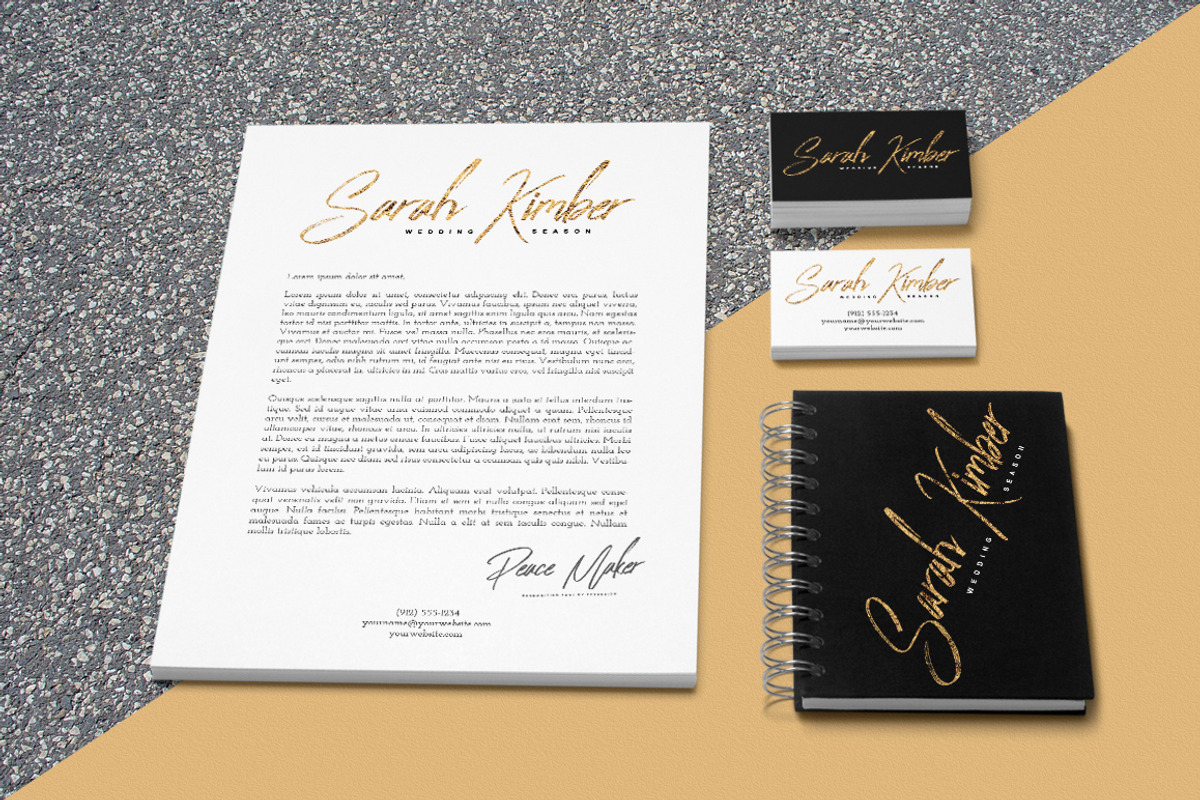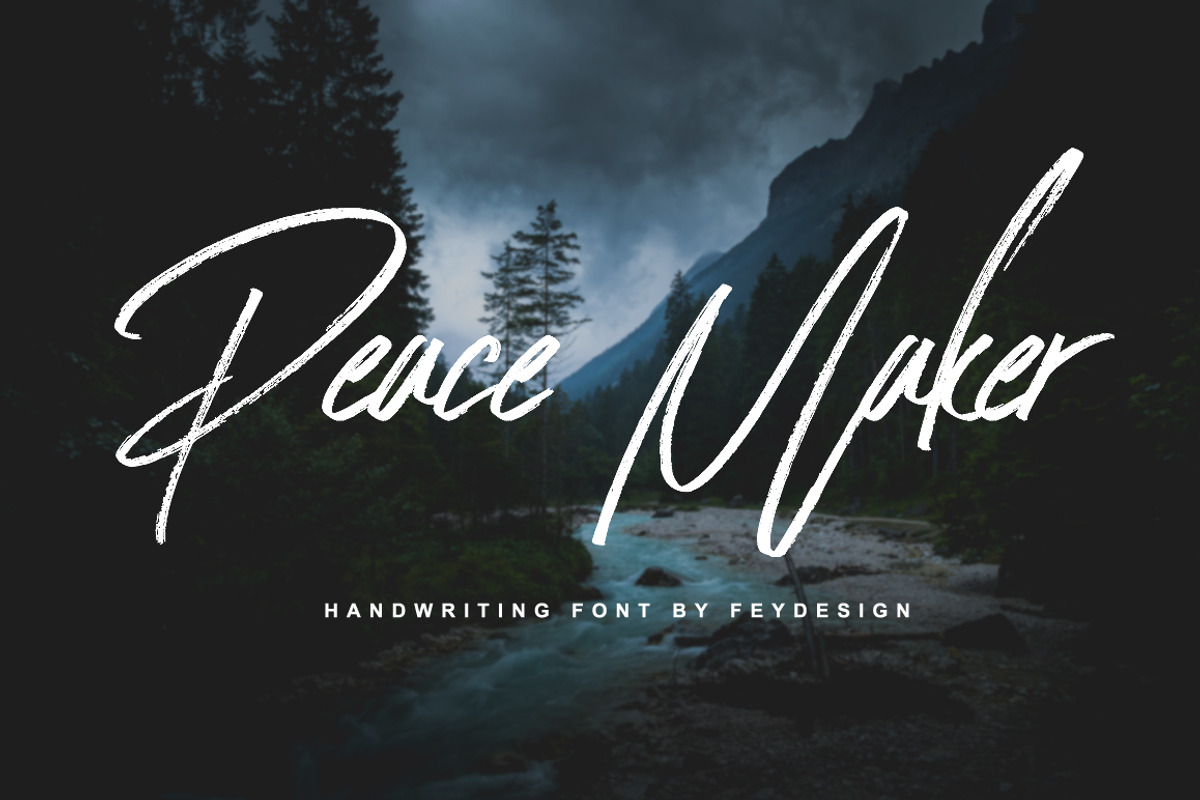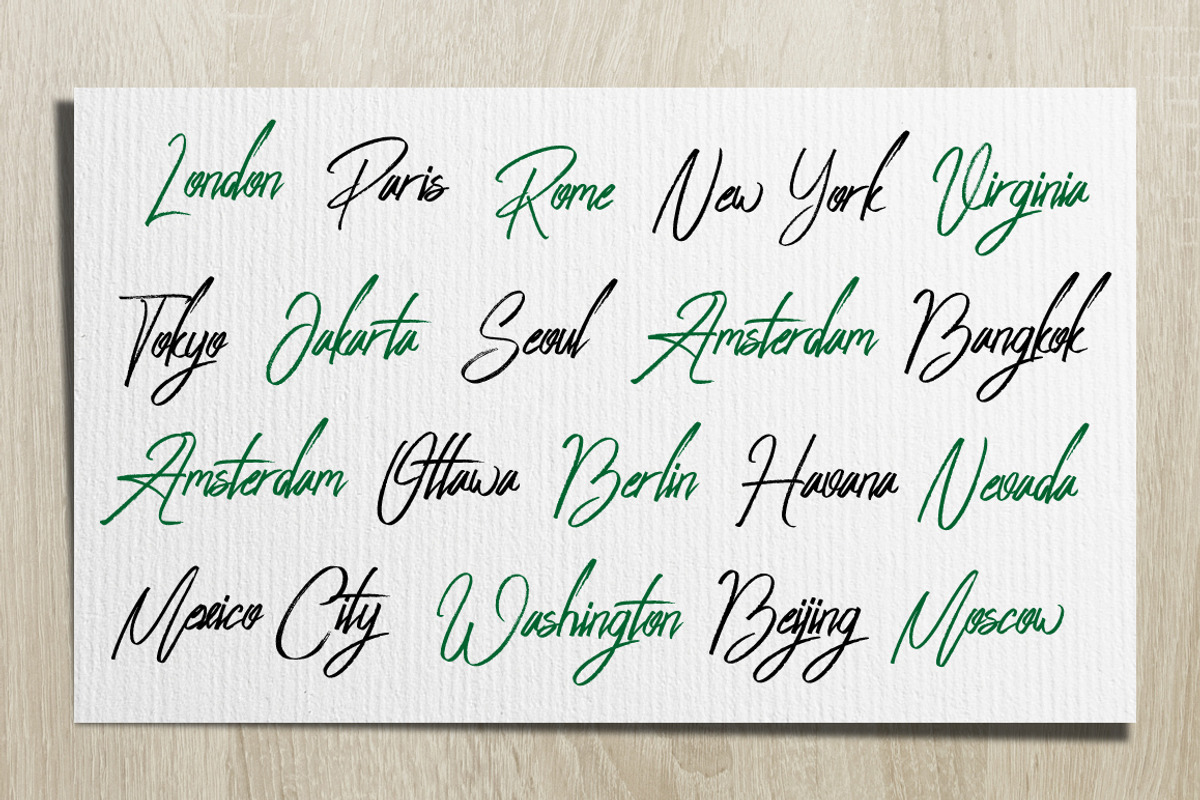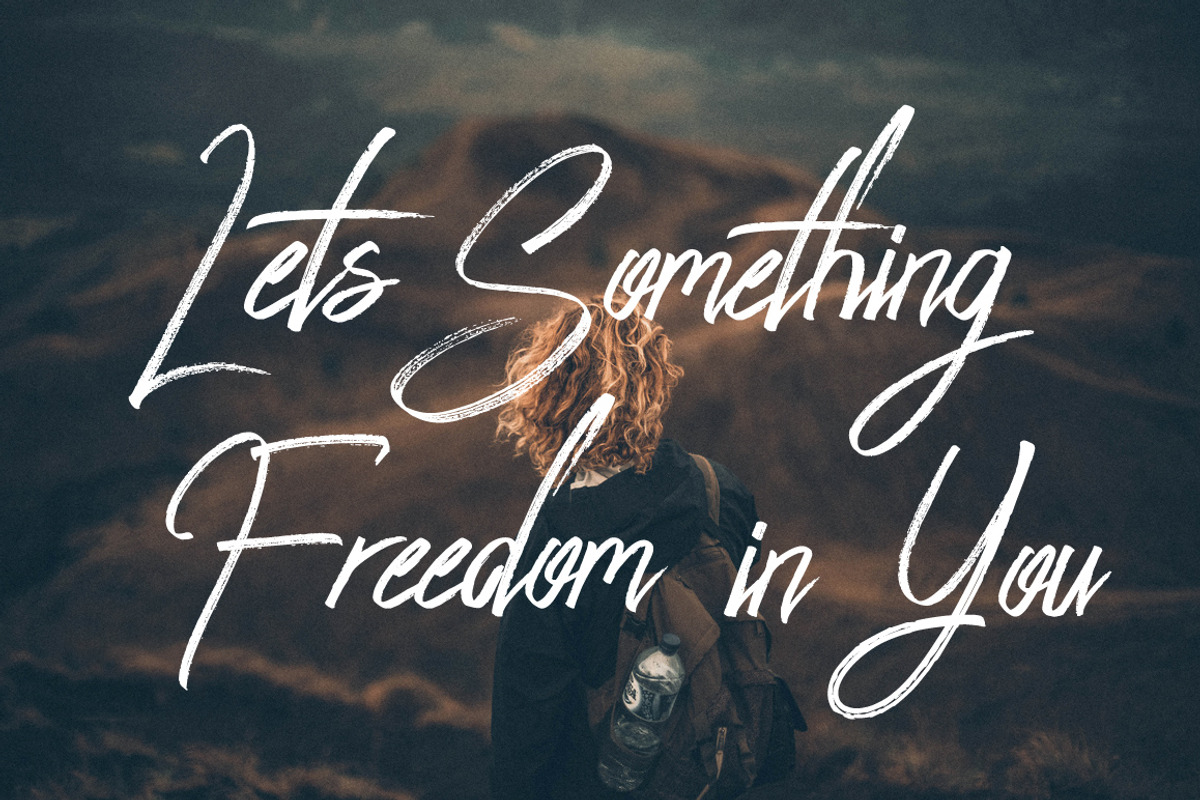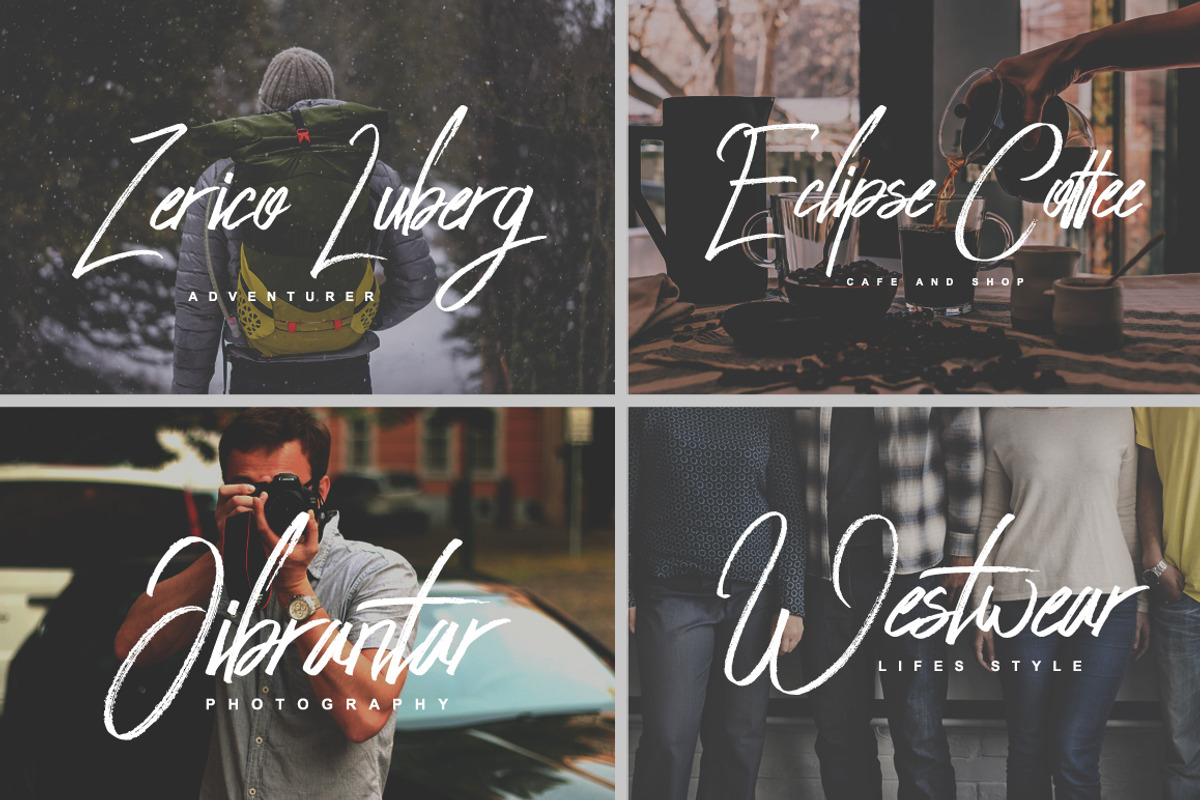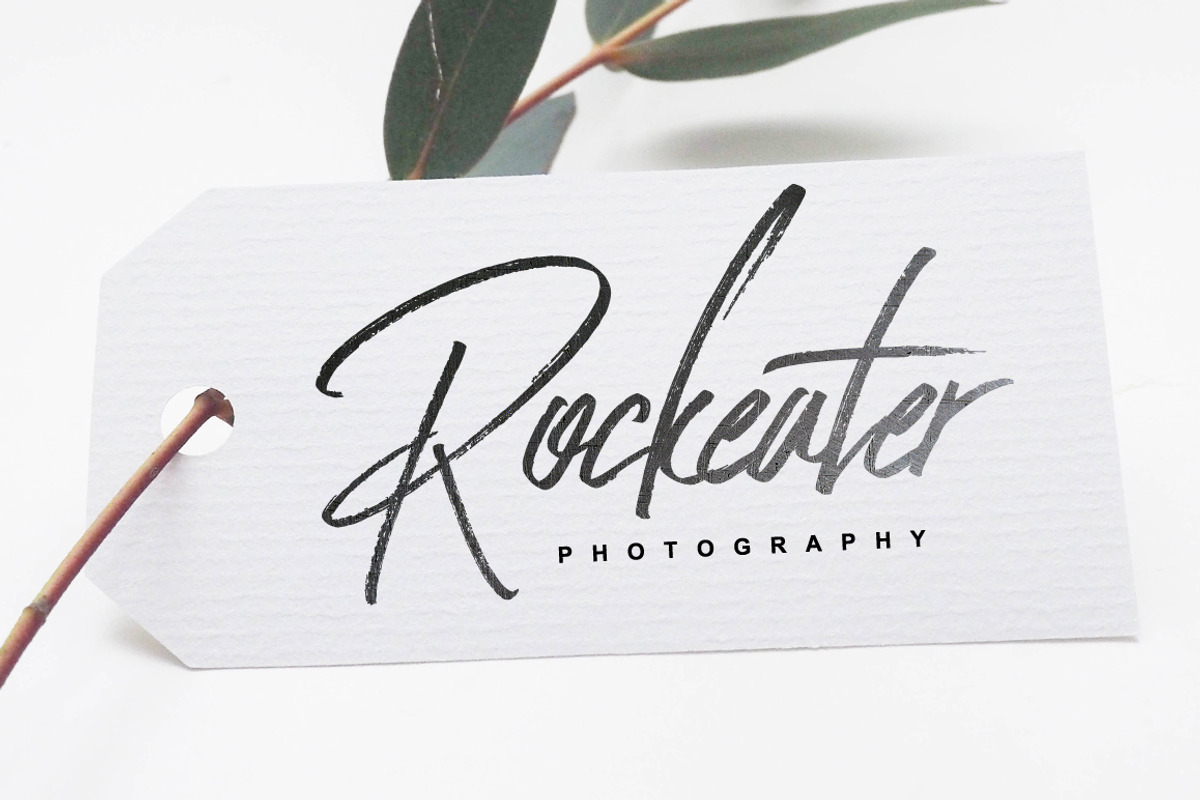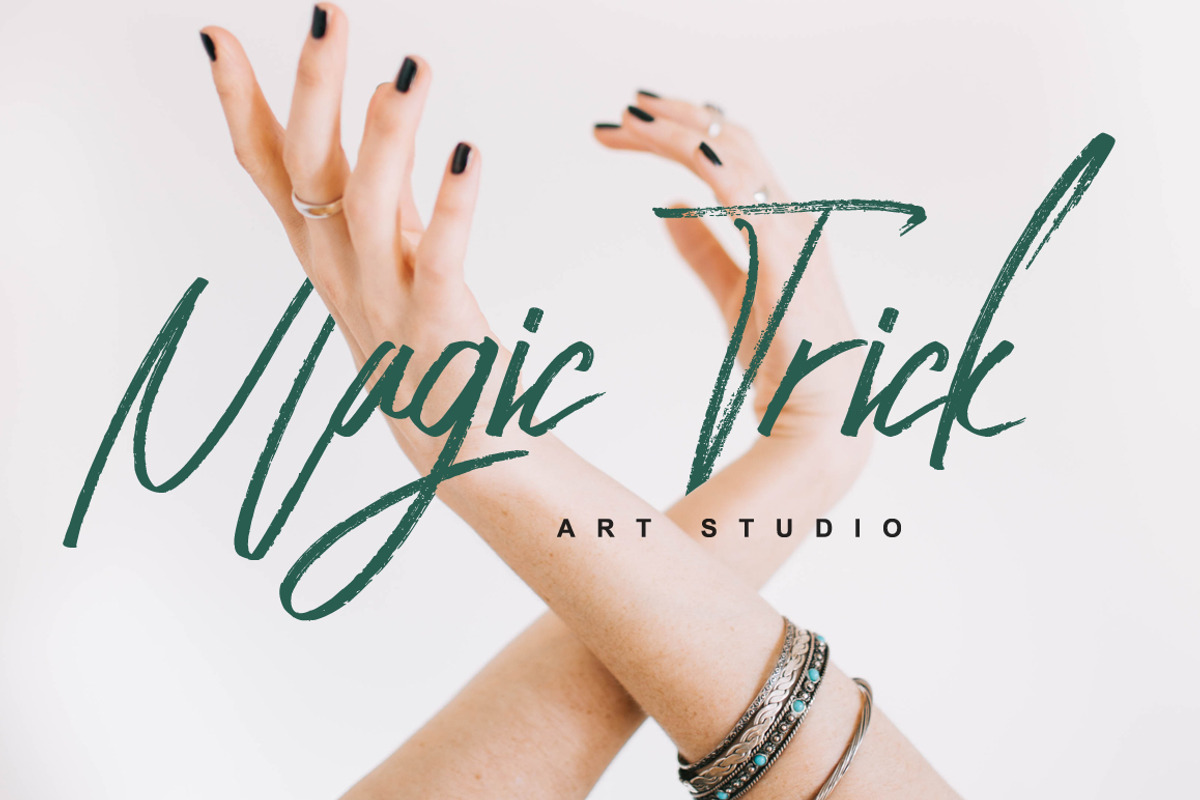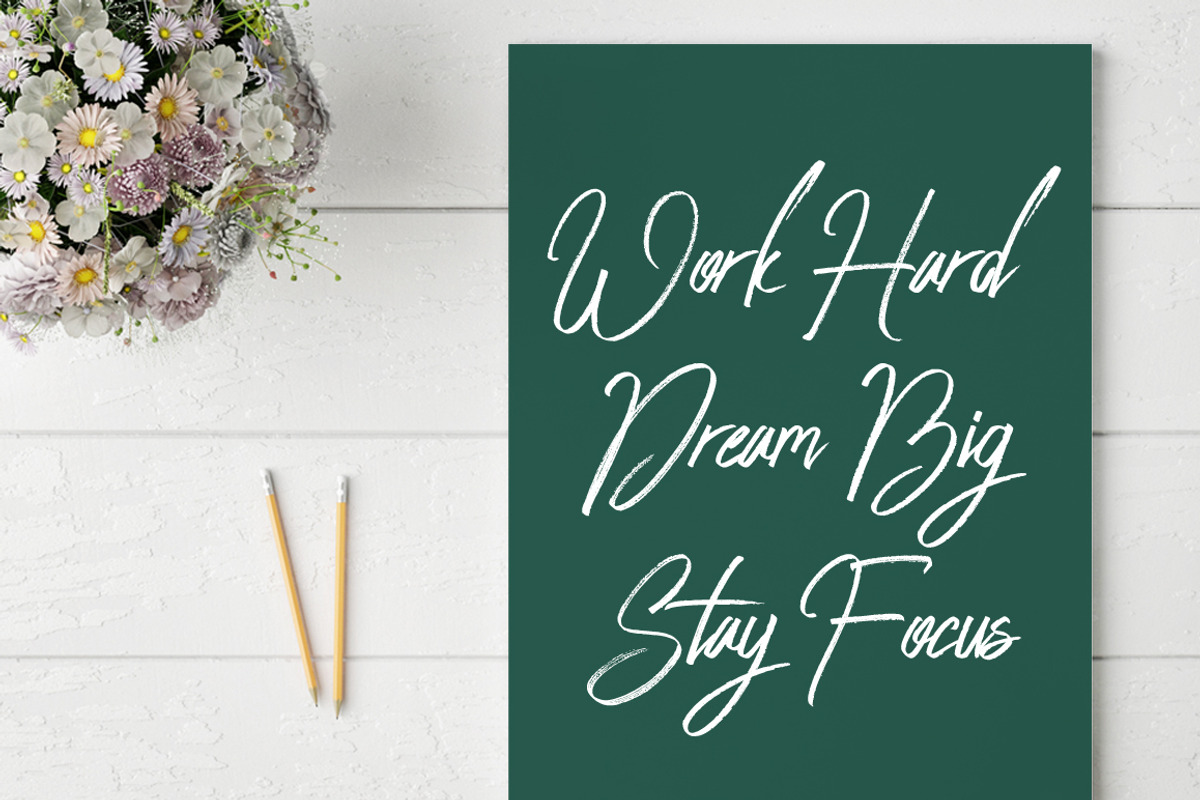
Peace Maker - Handletter Font
Peace Maker is Dry Brush Script Font with handletter style. Suitable for design, element design, wedding, event, t-shirt, logo, badges, sticker, and awesome work, etc...
Peace Maker Swashes, There are swashes handwritting dry brush marker for make type design perfect.